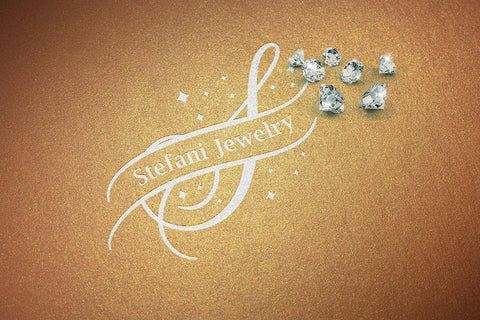
March Split Monogram
March Split Monogram is a stunning font with split elegant monograms letters suitable for digital projects, cards, invitations, weddings, logos, website or crafts projects.emboidery. Perfect for magazine, news papers, posters, in branding, headers, invitations and save the dates, flyers, packaging, bags and so much more.
comes with two versions of March monogram & March split monogram ( you can use upper and lower case to grab each side of the split )